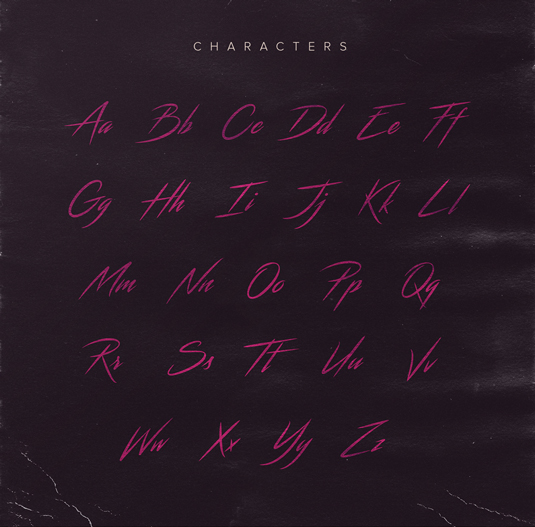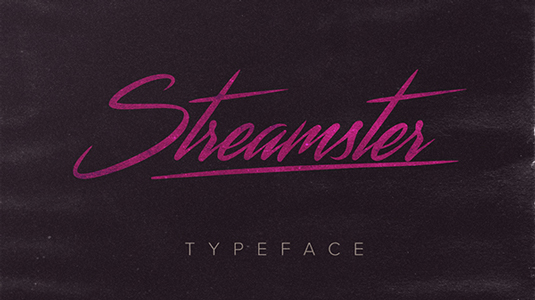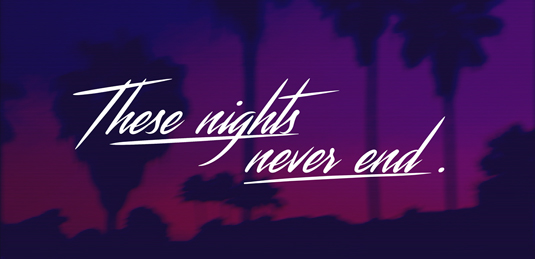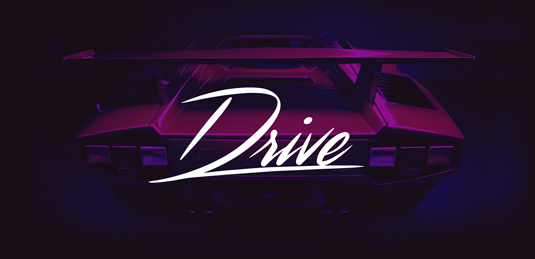
Font of the day: Streamster
Every day we showcase the best fonts on the web. Today it's Streamster by Youssef Habchi, which is totally free to download.
Streamster by Youssef Habchi
If you're in need of an '80s-inspired, retro style typeface, look no further than Streamster. Created by designer Youssef Habchi, this cool font is great for creating eye-catching posters, headlines and much more.